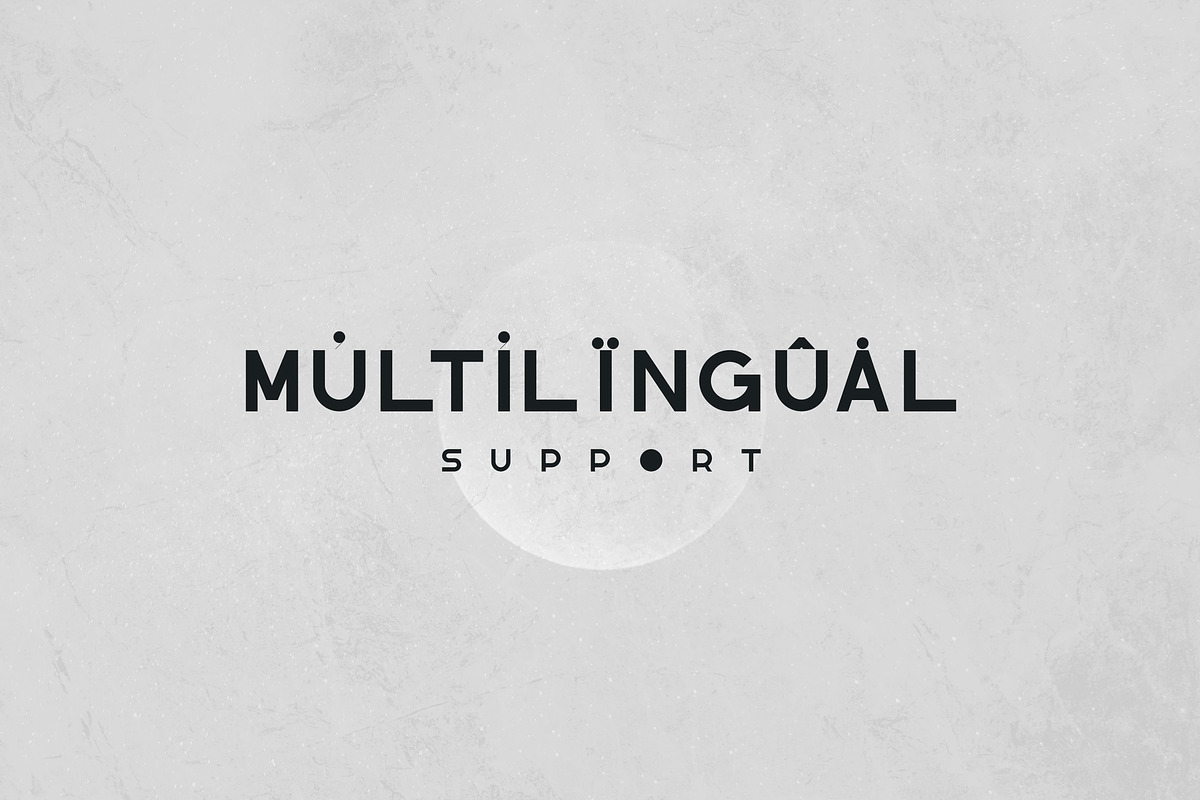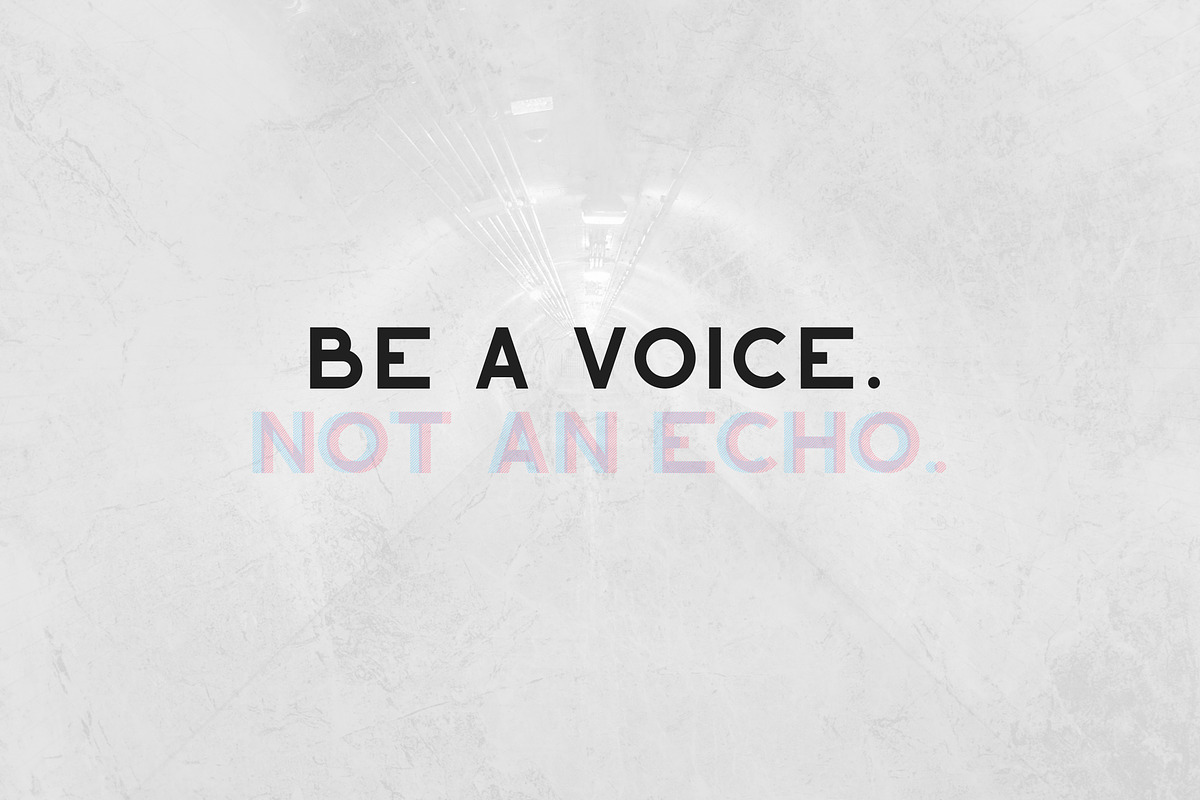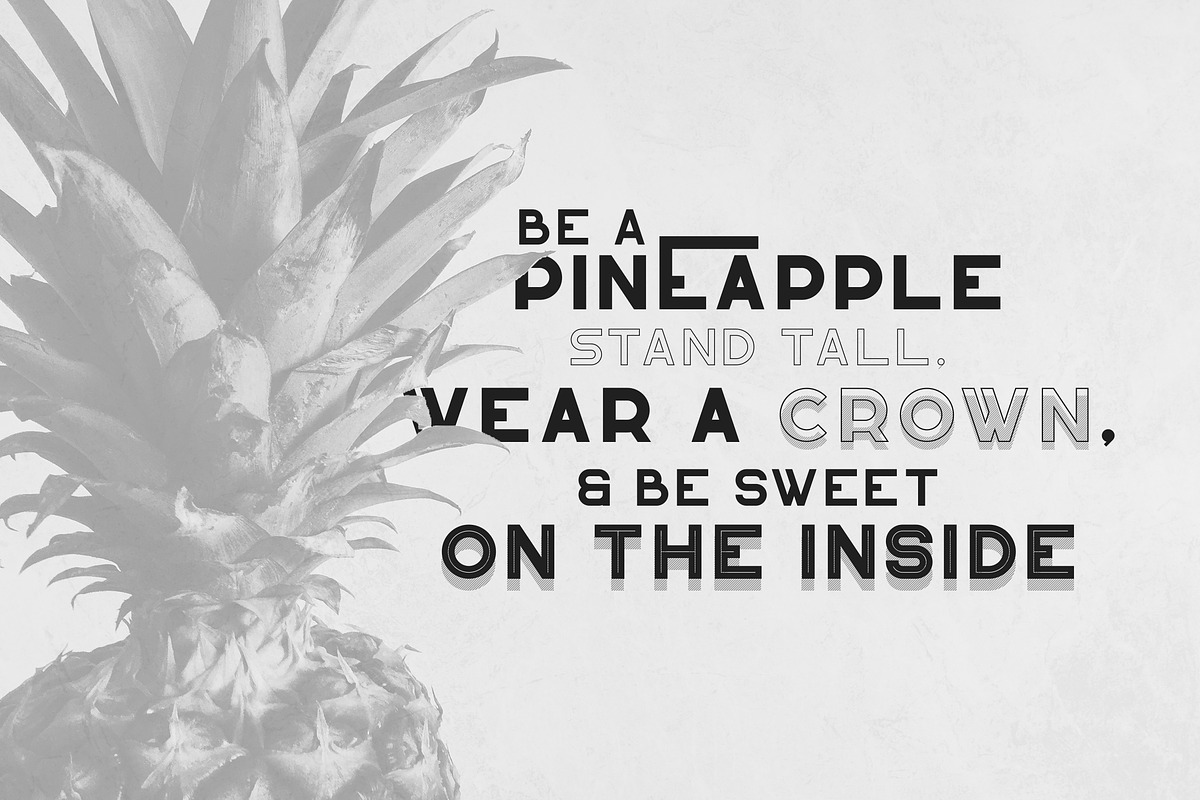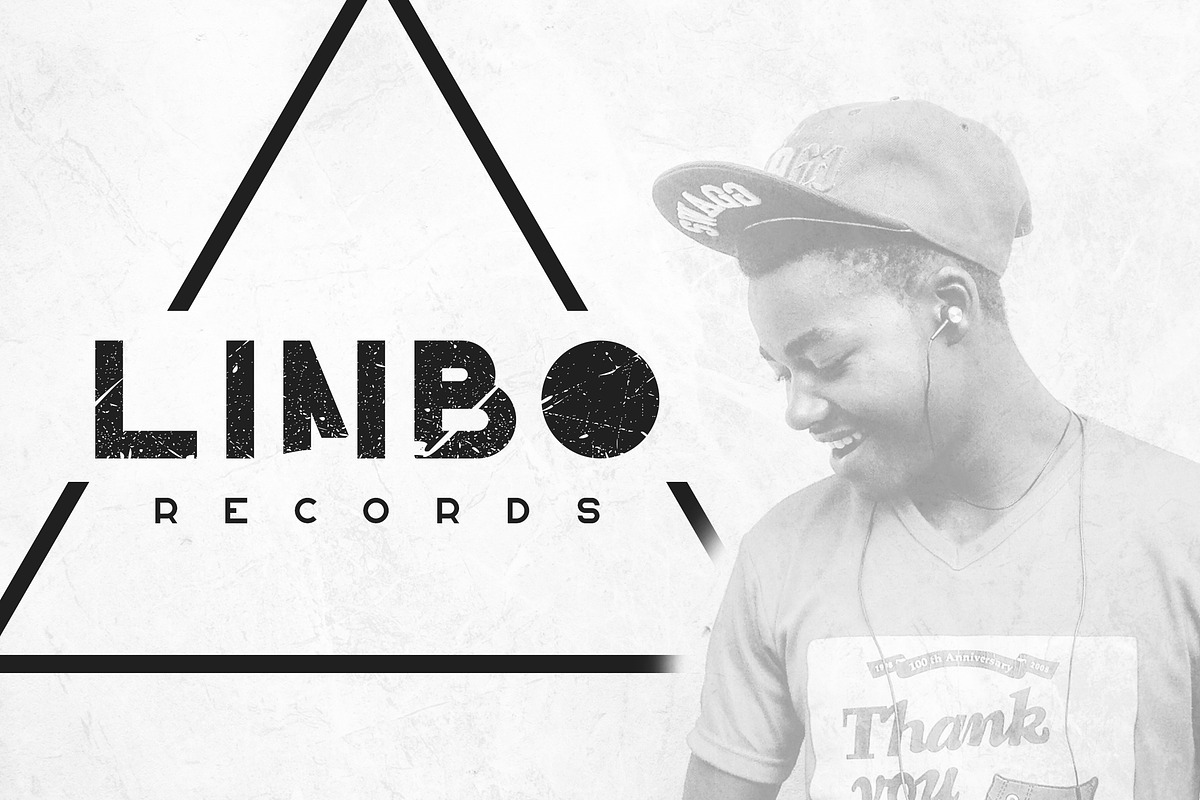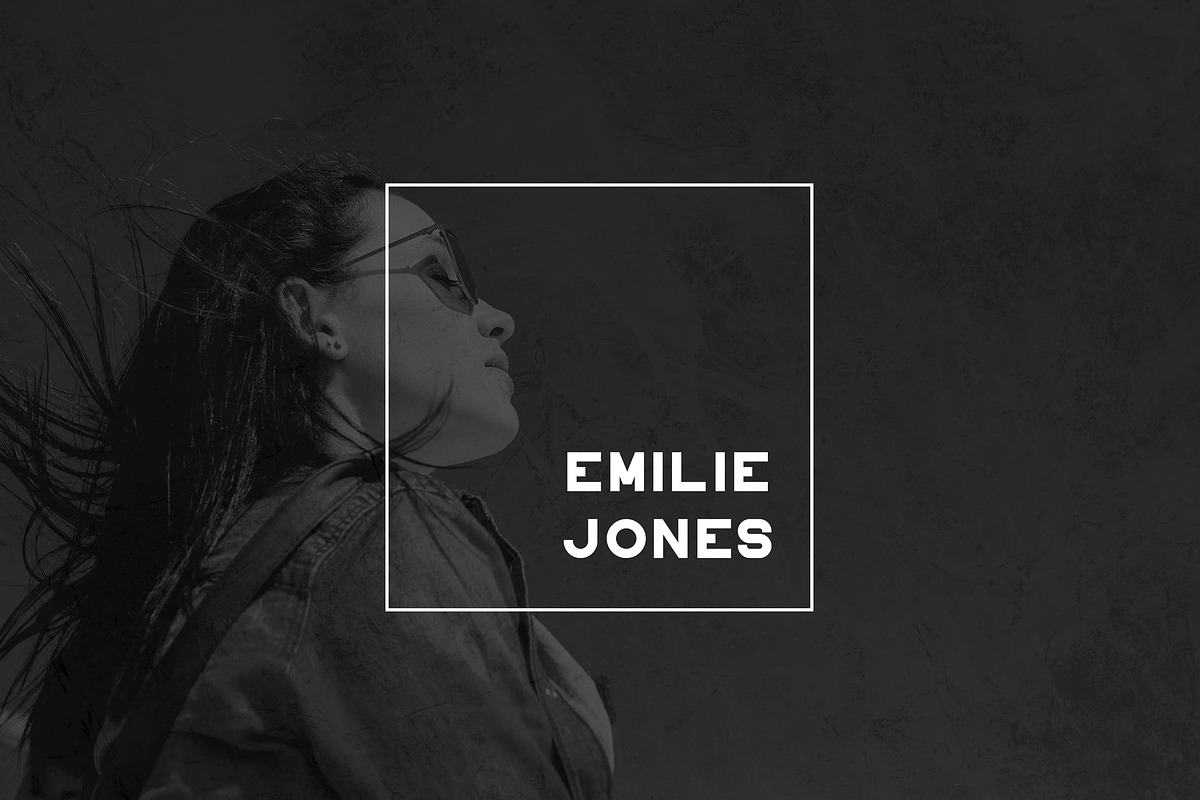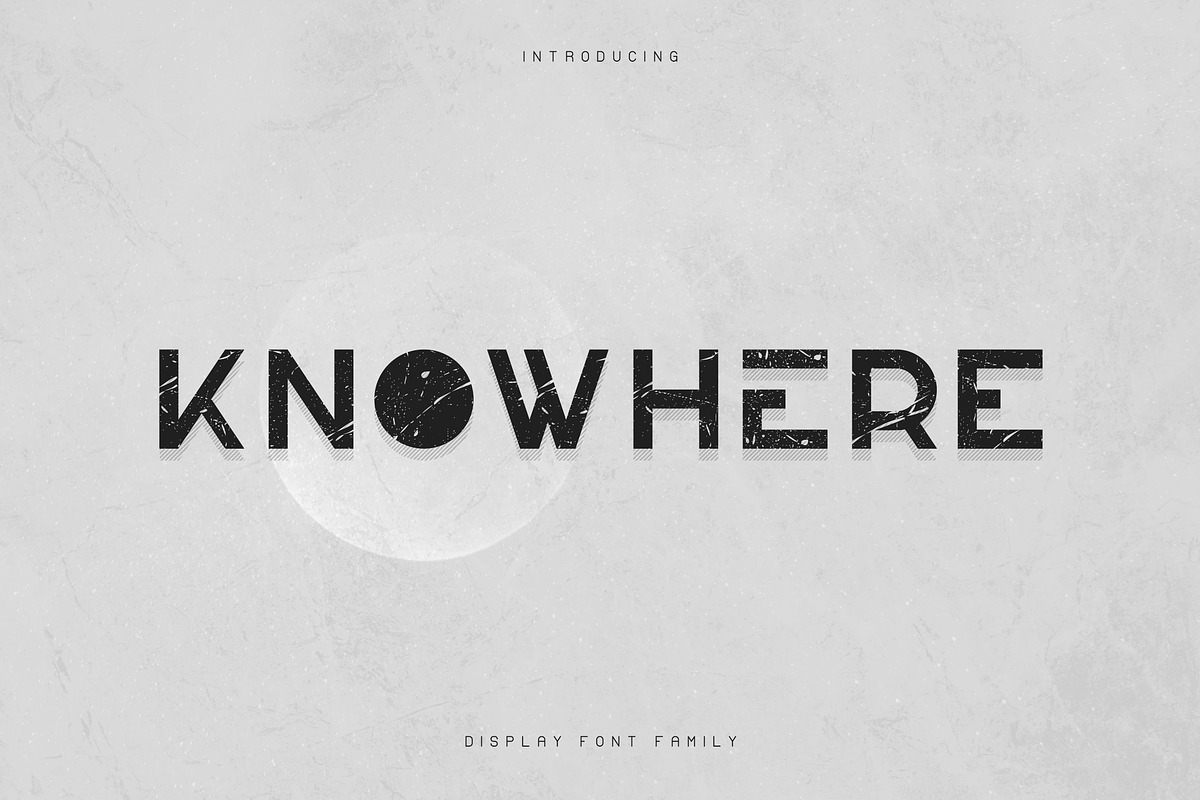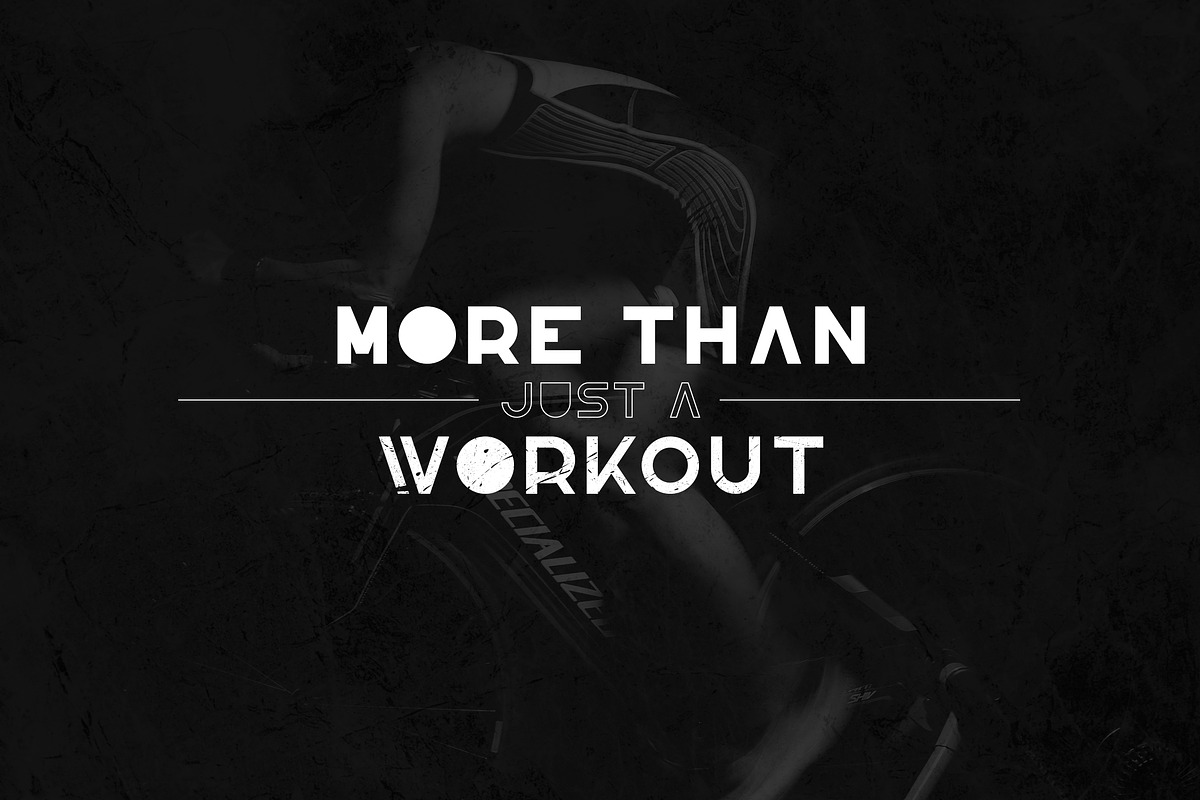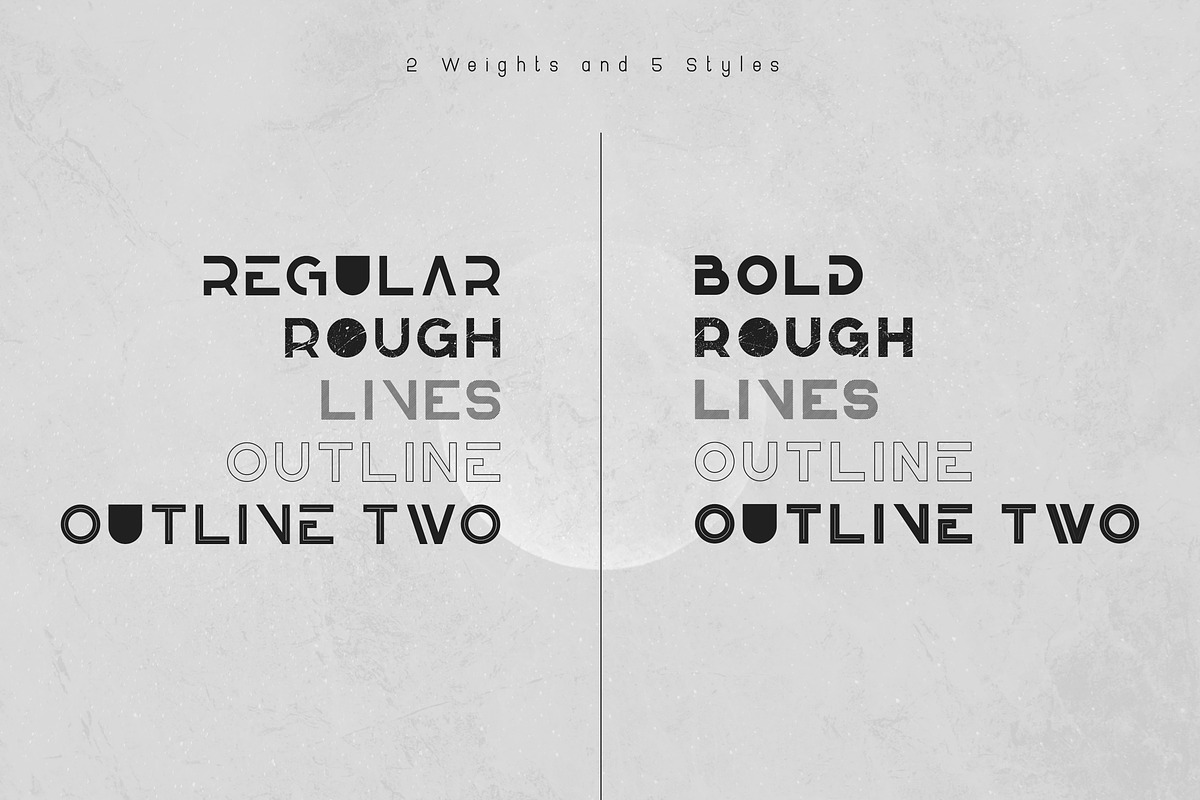
Knowhere - Display font family -50%
Knowhere is geometrical, clean font family with 2 weights and 5 styles, and multilingual support. It's a very versatile font that works great in large and small sizes.
Knowhere is perfect for branding projects, home-ware designs, product packaging, magazine headers - or simply as a stylish text overlay to any background image.